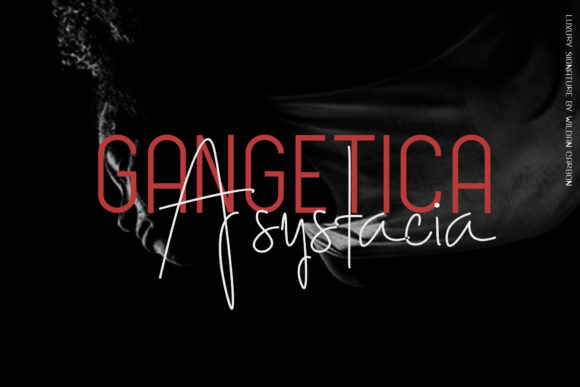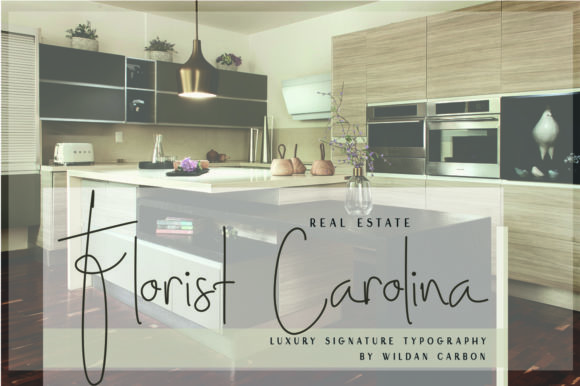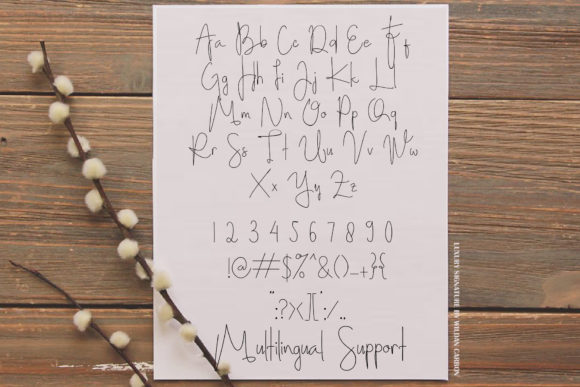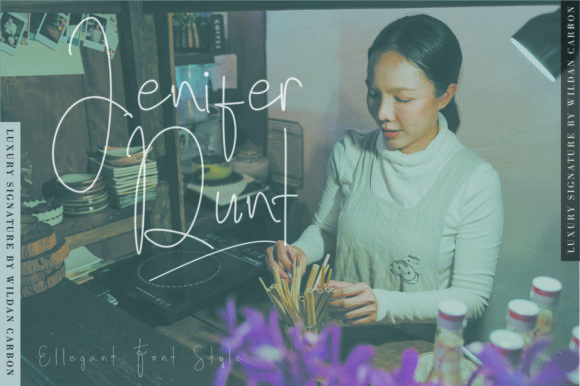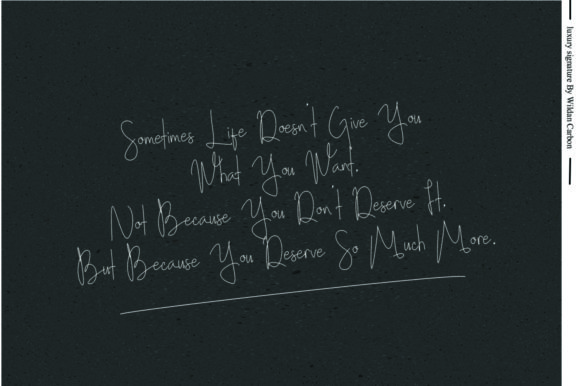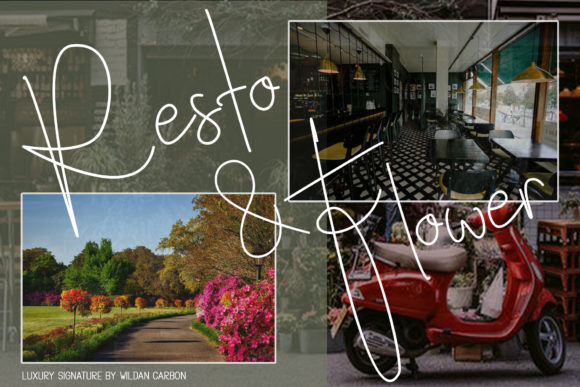
Introducing Adolf William Font: Elevate Your Designs with Casual Chic Flair
Are you on the hunt for a stylish and versatile font to elevate your designs? Look no further than Adolf William Font, a beautiful handwritten font that exudes casual chic flair. This stunning font is perfect for designers and crafters seeking to add a touch of sophistication and elegance to their work. In this article, we’ll dive into the world of Adolf William Font, exploring its features, uses, and benefits, as well as provide tips on how to make the most of this incredible font.
What is Adolf William Font?
Adolf William Font is a stylish handwritten font designed to bring a touch of casual elegance to your designs. With its smooth, flowing lines and delicate strokes, this font is perfect for creating beautiful branding, wedding invitations, signatures, logos, and more. Its unique charm and character make it an excellent choice for designers seeking to add a personal touch to their work.
Key Features of Adolf William Font
- Handwritten style: Adolf William Font boasts a beautiful, handwritten style that adds a touch of warmth and personality to your designs.
- Casual chic flair: This font’s casual elegance makes it perfect for designs that require a sophisticated yet relaxed feel.
- Versatility: Adolf William Font can be used for a wide range of design projects, from branding and logos to wedding invitations and signatures.
- Easy to read: Despite its elegant style, Adolf William Font remains easy to read, making it perfect for body text and headlines.
Uses of Adolf William Font
Adolf William Font’s versatility makes it an excellent choice for various design projects. Here are some of the many uses of this incredible font:
- Branding: Create stunning brand identities with Adolf William Font, perfect for logos, business cards, and letterheads.
- Wedding invitations: Add a touch of elegance to your wedding invitations, save-the-dates, and thank-you cards with this beautiful font.
- Signatures: Use Adolf William Font to create custom signatures that make a lasting impression.
- Logos: Design unique and memorable logos for your clients or business with this stylish font.
- Digital and print media: Adolf William Font can be used for various digital and print projects, including brochures, flyers, posters, and social media graphics.
Benefits of Using Adolf William Font
So, why choose Adolf William Font for your designs? Here are some benefits of using this amazing font:
- Unique and distinctive: Adolf William Font’s stylish and elegant design sets it apart from more traditional fonts.
- Time-saving: With Adolf William Font, you can create stunning designs in no time, thanks to its easy-to-read and versatile nature.
- High-quality: Adolf William Font is designed with high-quality craftsmanship, ensuring crisp and clear results in any design project.
Tips for Using Adolf William Font
To make the most of Adolf William Font, here are some valuable tips to keep in mind:
- Pair with contrasting fonts: Combine Adolf William Font with contrasting fonts to create visual interest and hierarchy in your designs.
- Experiment with colors: Try pairing Adolf William Font with different colors to add depth and personality to your designs.
- Use for headlines and body text: This font’s readability makes it perfect for both headlines and body text, allowing you to maintain consistency throughout your designs.
- Pay attention to spacing: Ensure you leave sufficient spacing between lines and words to maintain clarity and prevent overcrowding.
In conclusion, Adolf William Font is an exceptional addition to any designer’s or crafter’s toolkit. Its unique blend of casual chic flair and elegance makes it perfect for a wide range of design projects. By incorporating Adolf William Font into your workflow, you’ll be able to create stunning, high-quality designs that leave a lasting impression.
| Font Name | Adolf William Font |
| Author | Wildan Type |